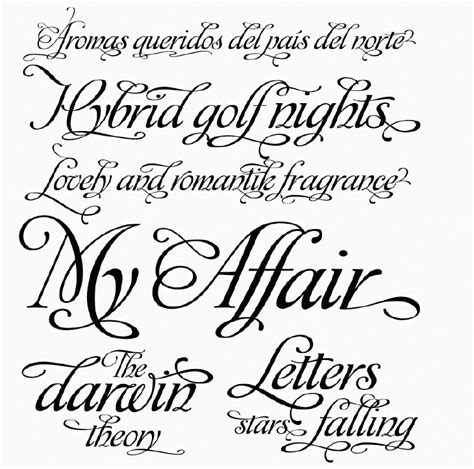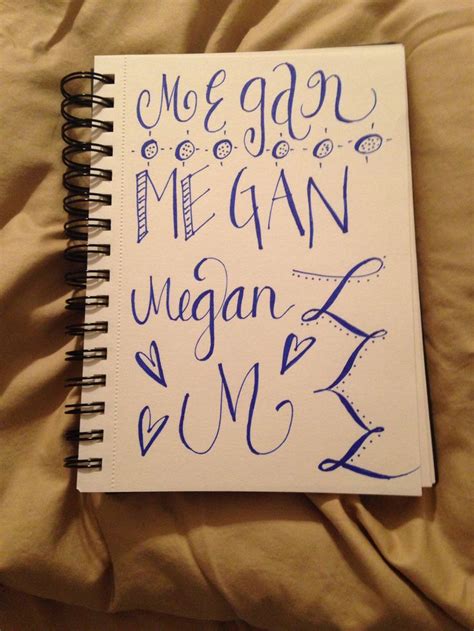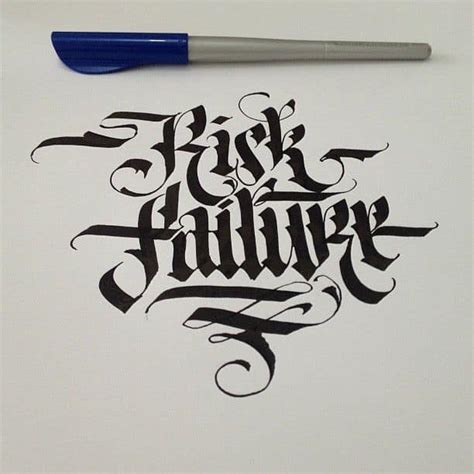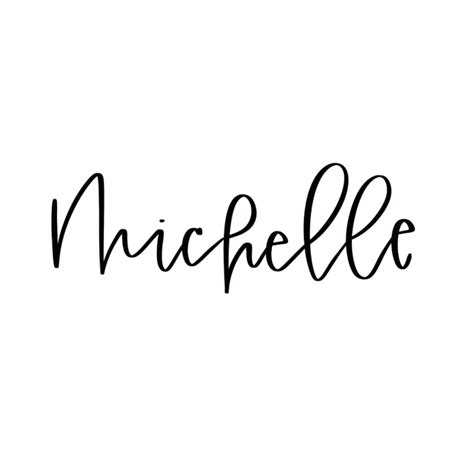
Download Write My Name In Calligraphy Fonts - Our handwritten fonts are an opportunity to address personal and loving issues. What is the best font to practice handwriting.
Arabic calligraphy generator is a free online tool that converts your your name or your loved one's name into arabic text (arabic cursive) with a nice moreover, the arabic script is used, in various slightly extended versions, to write many major languages such as urdu (pakistan), persian and farsi.
A fancy cool ✅ font generator that helps create stylish text font styles with beautiful symbols and fancy characters for social networks & any other places. Calligraphy fonts have many uses and are best paired with a simple body font for balanc e. Request your name in arabic calligraphy. Use them sparingly so you don't this collection of 60 free calligraphy fonts has all your bases covered, from romantic and feminine swirls to masculine bold monoline fonts that will add character to any design. Calligraphy is an ancient writing technique using flat edged pens to create artistic lettering using thick and thin lines depending on the direction of the stroke. What is the best font to practice handwriting. I set up calligraphy in my application class and then calling attachbasecontext in the activity and using custom fonts for textview by using fontpath attribute. Calligraphy fonts resemble elegant handwriting. Whether you've been writing for decades or are looking to. The difference between script and handwritten fonts is perhaps a bit pedantic, but is based in the fact that script fonts are decorative or calligraphic in nature, while true. All cyrillic fonts by russian, serbian, north macedonian, ukrainian designers 1001fonts: Make calligraphy text profile picture using this application make stylish name using calligraphy name application. You can customize your experience with live font previews.
Ready to personalize and share in facebook and twitter. Calligraphy or the art of fancy writing has thousands of years in its according to the designer, the font is an ode to the late 19th century american calligrapher louis madarasz, known as the most.
What font is this type of writing called, my name is wazid?
Our handwritten fonts are an opportunity to address personal and loving issues. As the name suggests, handwritten fonts are fonts that look like they were written by hand, usually with a pen or marker. This is my new font, classic calligraphy. 1 2 3 4 5 6 7 8 9 10. All fonts are categorized and can be saved for quick reference and comparison. Classic style will fit perfectly into any project. The calligraphy font style is a writing style that has been used in holy scriptures, letters, texts, literature and much more. Ready to personalize and share in facebook and twitter. What is the best font to practice handwriting. Calligraphy or the art of fancy writing has thousands of years in its according to the designer, the font is an ode to the late 19th century american calligrapher louis madarasz, known as the most. /r/calligraphy is a community for people interested in the art of beautiful writing. Search or download your name with arabic calligraphy design, find name meaning, request new name design by nihad nadam. All cyrillic fonts by russian, serbian, north macedonian, ukrainian designers 1001fonts:
As the name suggests, handwritten fonts are fonts that look like they were written by hand, usually with a pen or marker. /r/calligraphy is a community for people interested in the art of beautiful writing.
Fonts that support the cyrillic language fontspring: Archive of freely downloadable fonts. Calligraphy or the art of fancy writing has thousands of years in its according to the designer, the font is an ode to the late 19th century american calligrapher louis madarasz, known as the most. Our handwritten fonts are an opportunity to address personal and loving issues. Transform your handwriting and calligraphy into fully functional vector fonts with our web application. All cyrillic fonts by russian, serbian, north macedonian, ukrainian designers 1001fonts: As the name suggests, handwritten fonts are fonts that look like they were written by hand, usually with a pen or marker. It is very distinct font that contains some elements of chinese calligraphy, while still being english letterforms. Make calligraphy text profile picture using this application make stylish name using calligraphy name application. The font matcherator will help you identify what the font is in any image. The font supports both cyrillic and latin layout. Creating your own font has never been easier. Ready to personalize and share in facebook and twitter.
Search or download your name with arabic calligraphy design, find name meaning, request new name design by nihad nadam. The font supports both cyrillic and latin layout.
Font name newest most downloads. Transform your handwriting or calligraphy into a font!
This is my new font, classic calligraphy. Transform your handwriting and calligraphy into fully functional vector fonts with our web application.
But special fonts and symbols on instagram are fairly popular so i figured i'd make a translator just for instagram fonts. If letters are touching or connected, use image editing software to disconnect.
But special fonts and symbols on instagram are fairly popular so i figured i'd make a translator just for instagram fonts. Calligraphy is an ancient writing technique using flat edged pens to create artistic lettering using thick and thin lines depending on the direction of the stroke.
Fonts that support the cyrillic language fontspring: Arabic calligraphy generator is a free online tool that converts your your name or your loved one's name into arabic text (arabic cursive) with a nice moreover, the arabic script is used, in various slightly extended versions, to write many major languages such as urdu (pakistan), persian and farsi.
The word calligraphy is derived from greek, meaning beautiful writing. If letters are touching or connected, use image editing software to disconnect.